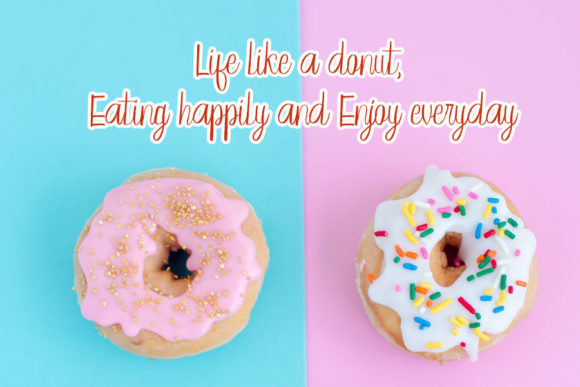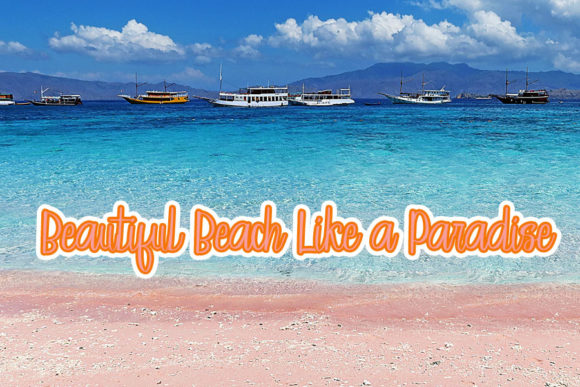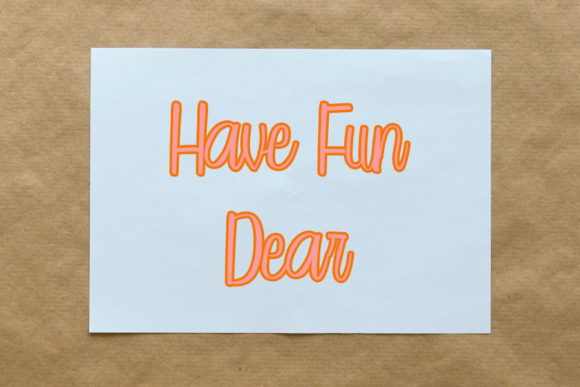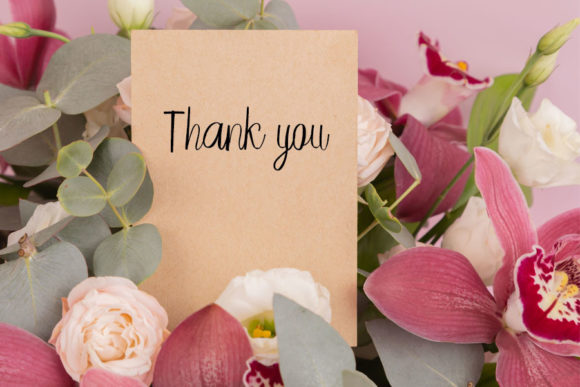
Better Dreams Font
About Better Dreams Font
Better Dreams is a romantic and elegant handwritten font. Dainty and joyful, this font will be ideal for writing wedding invitations, cards or any other design that may need a romantic, personalized touch!